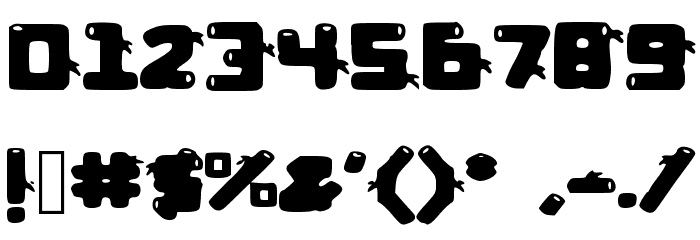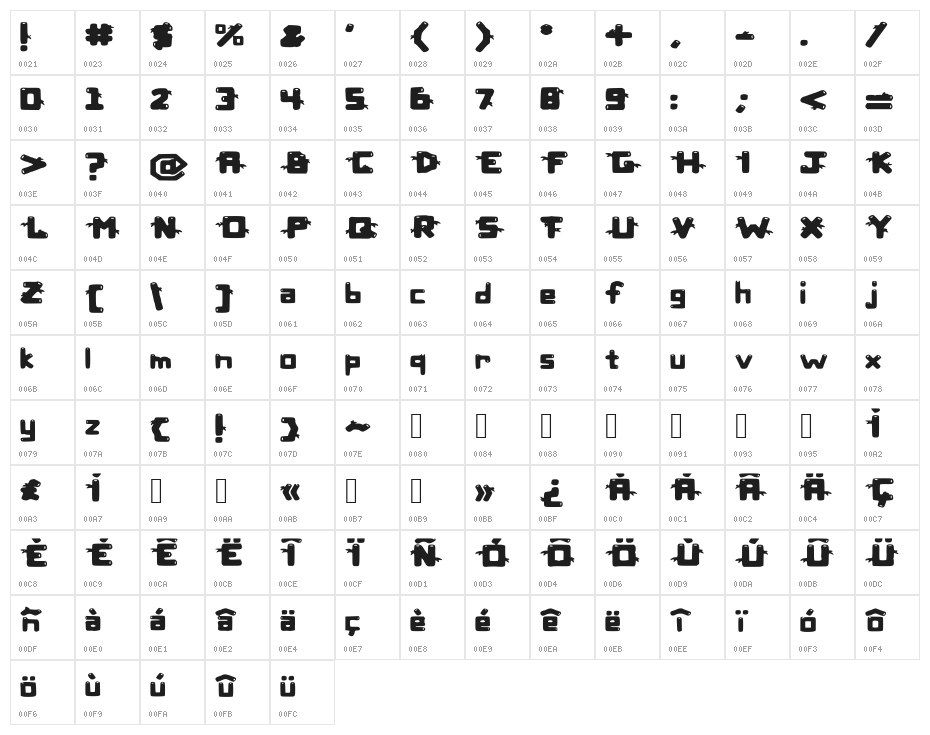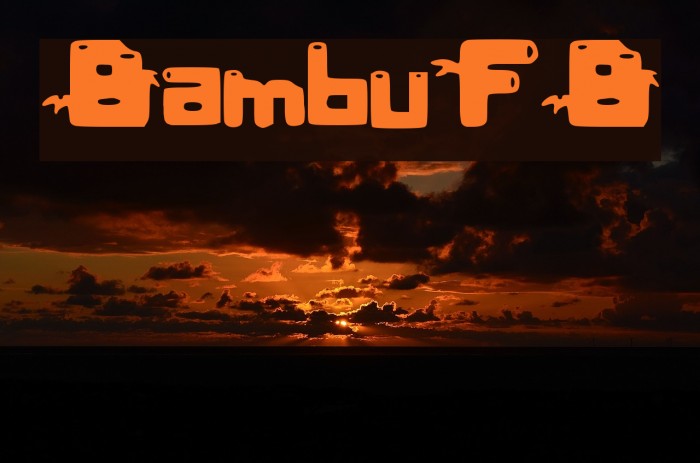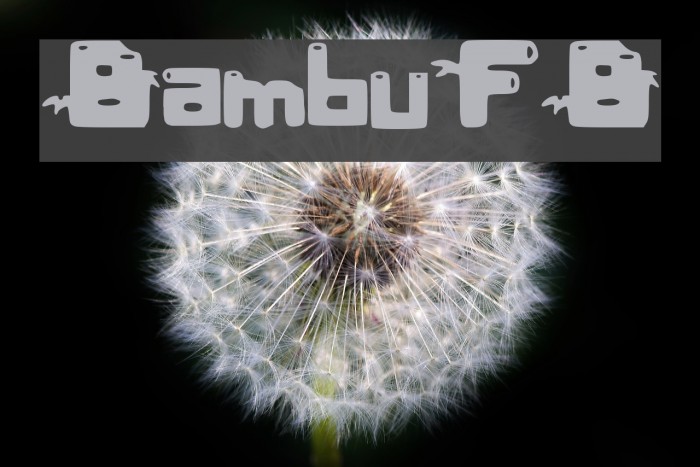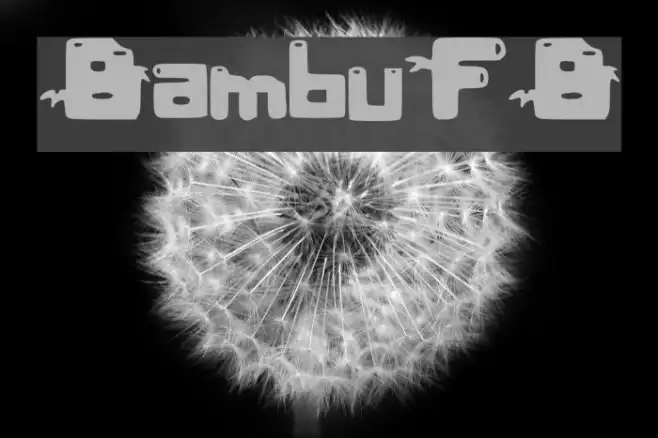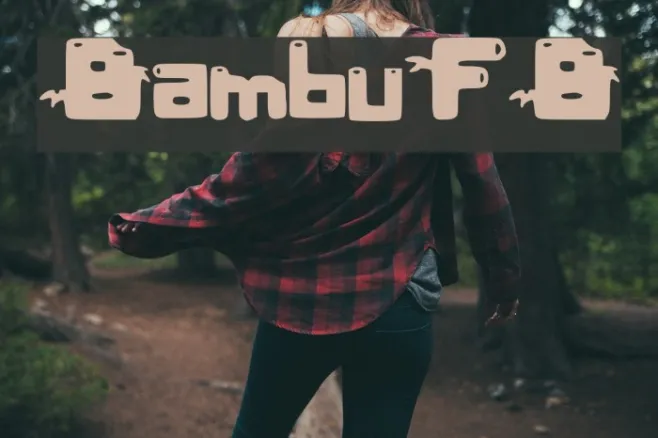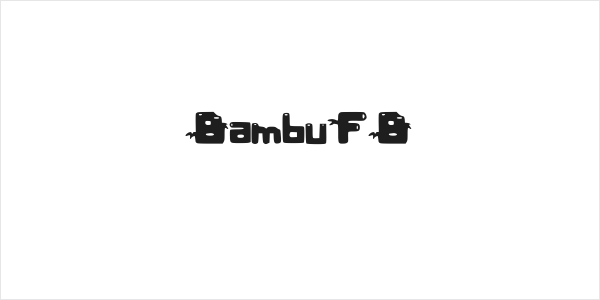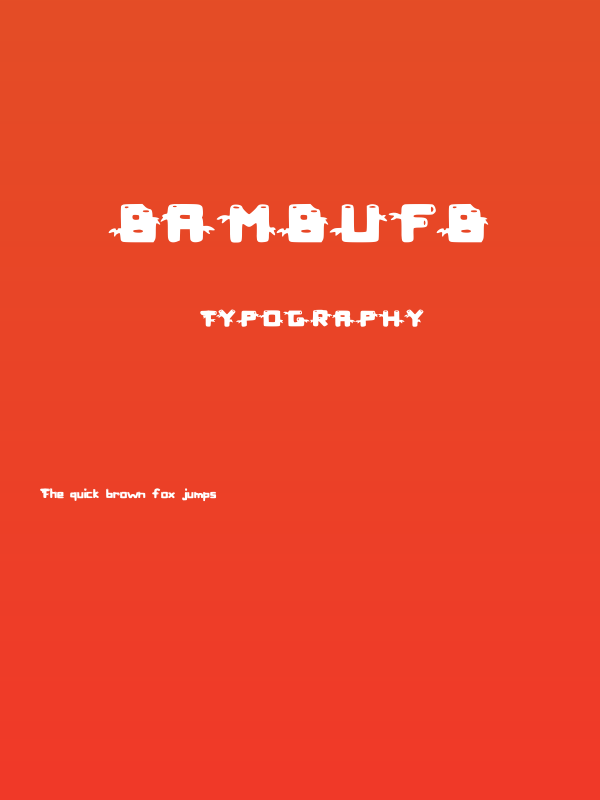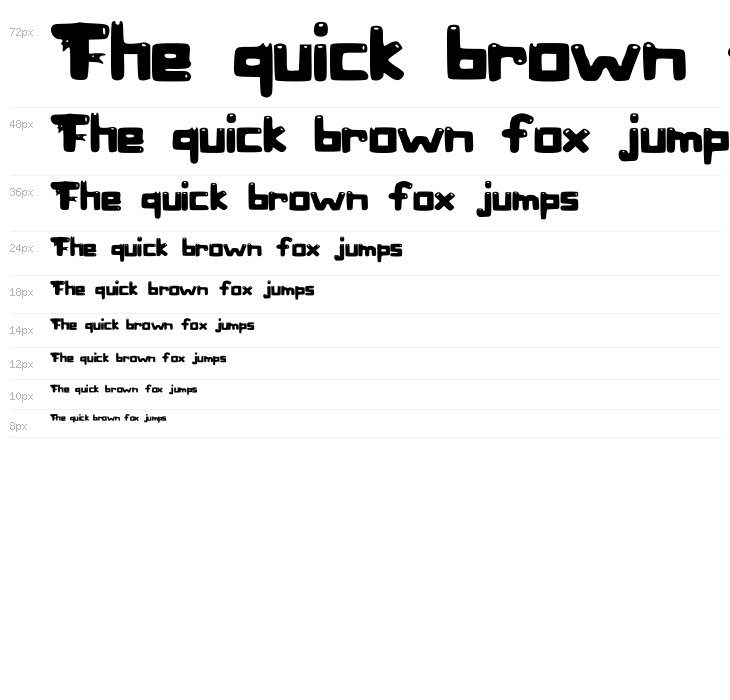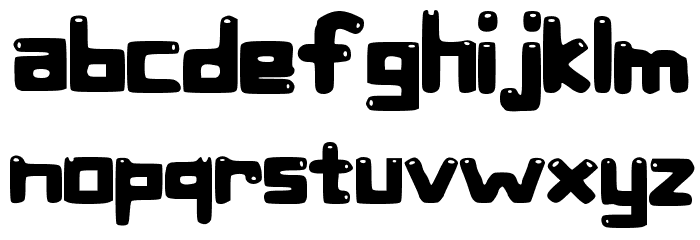
BambuFB Font
BambuFB Description
This font features a bold and playful design with a unique, decorative style. The characters have a chunky appearance with rounded edges and small, whimsical cutouts that add a touch of creativity. The uppercase and lowercase letters maintain a consistent weight, providing a cohesive look across the alphabet. Numbers and special characters follow the same design principles, ensuring uniformity. The font's distinctiveness makes it ideal for projects that require a fun and engaging visual element.
| Overall Style | Playful, Decorative |
| Use Case | Logos, Posters, Headlines |
| Proposed Projects | Ideal for children's books, playful branding, posters, and creative design projects. |